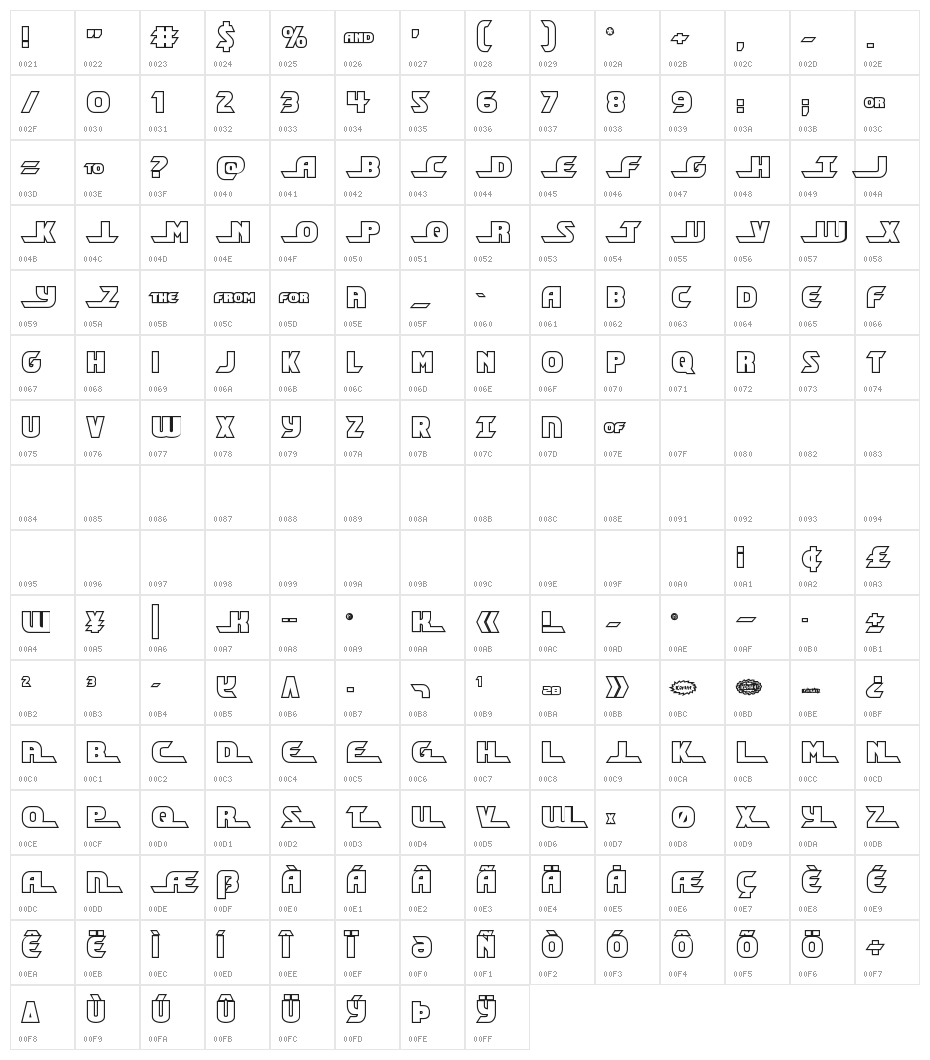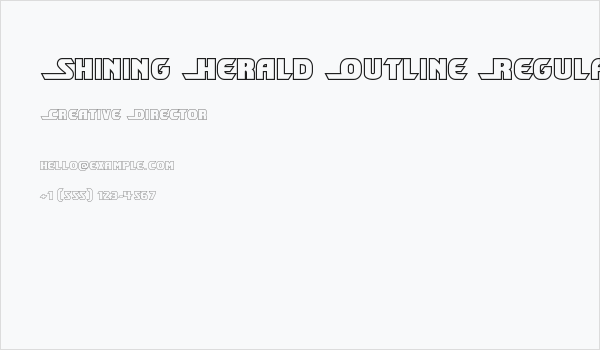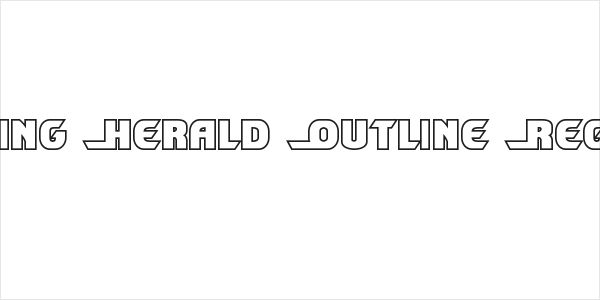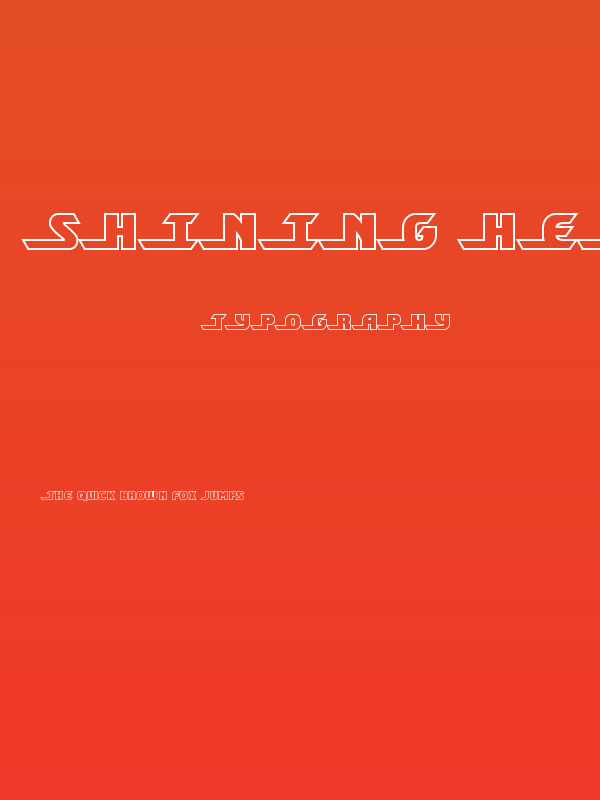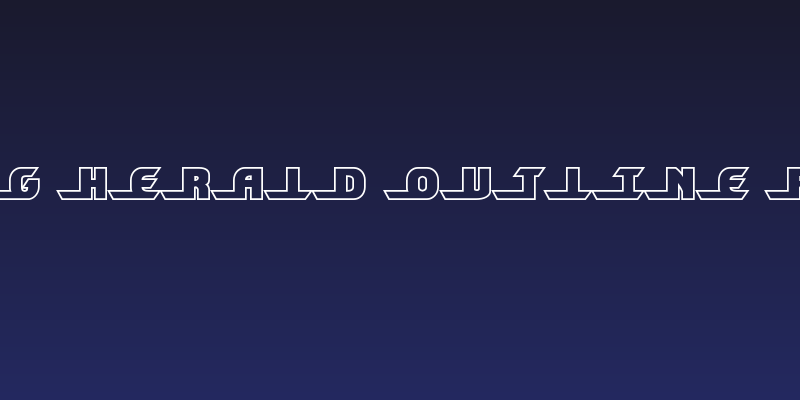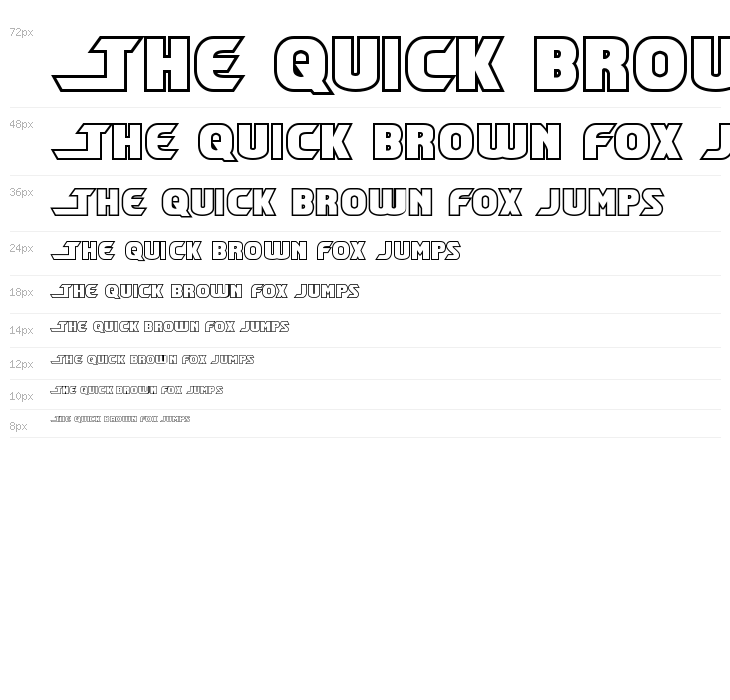
Shining Herald Outline Regular Font
Shining Herald Outline Regular Description
This font features a bold, outlined style with a modern and geometric appearance. The uppercase letters are designed with a consistent thickness and sharp angles, giving them a futuristic and striking look. The characters are well-defined with a clear separation between the outline and the inner space, creating a visually appealing contrast. The numbers and special characters follow the same design principles, ensuring uniformity across all elements. This font is ideal for projects that require a bold statement and a contemporary feel.